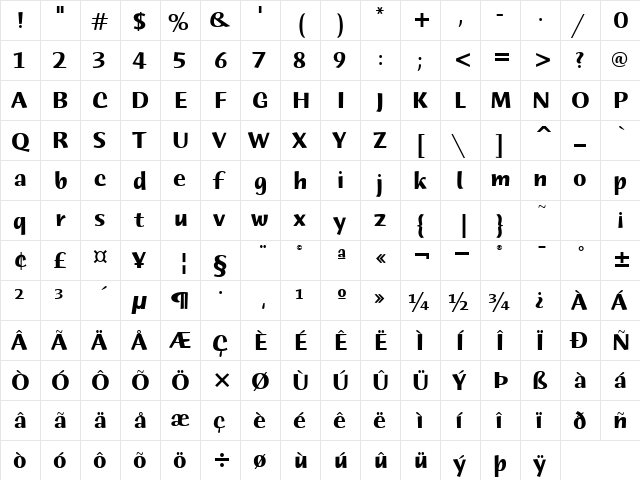
Humana Sans ITC TT Bold Font Preview
Humana Sans ITC TT Bold
Design Context for Humana Sans ITC TT Typeface
Humana Sans ITC TT takes a measured approach to typography — its balanced proportions and neutral character make it a reliable workhorse for both digital and print work. Its bold stroke weight gives it real presence on the page.